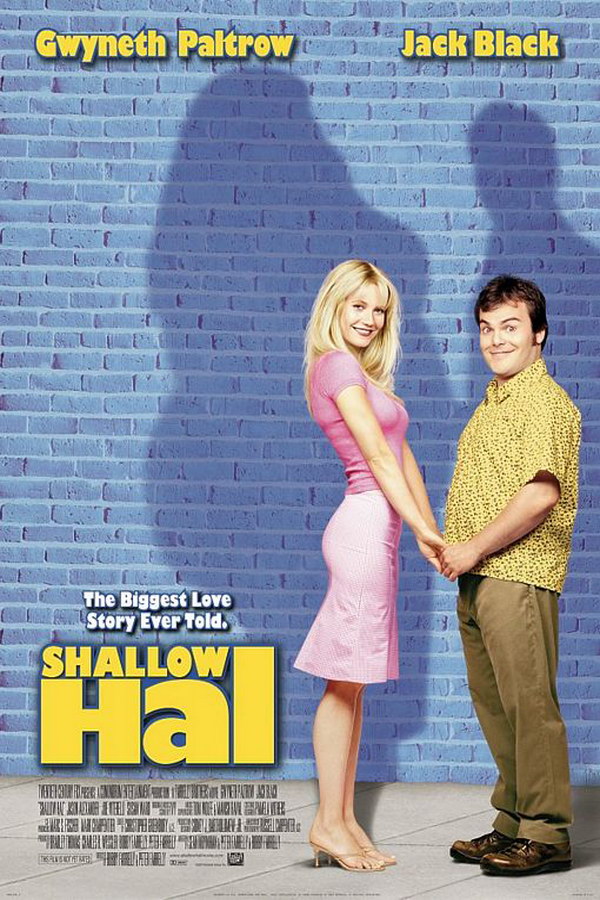
Shallow Hal Font
ComedyShallow Hal is a 2001 romantic comedy film directed by the Farrelly brothers. The film follows a shallow man who is hypnotized into seeing only the inner beauty of women, which leads him to pursue a woman who is physically unattractive but has a kind heart.
The "Shallow Hal" title font is most likely Gill Sans Ultra Bold, designed by Eric Gill in the late 1920s. The font is based on Edward Johnston's typeface, which Gill worked on during his apprenticeship. More details are available here.